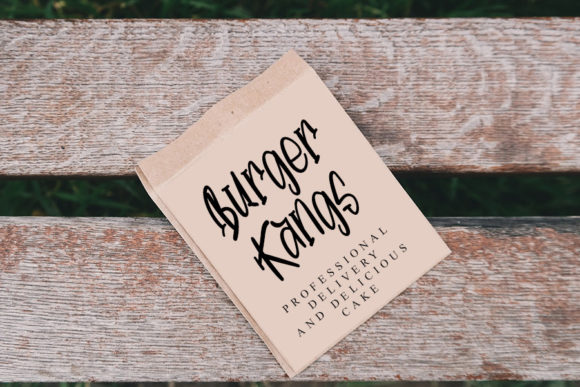
Crazy Booms Font: The Ultimate Display Font for Creative Projects
Are you tired of using the same old fonts for your creative projects? Do you want to add a touch of quirkiness and fun to your designs? Look no further than Crazy Booms Font! This smart and playful display font is perfect for making your projects stand out from the crowd.
What is Crazy Booms Font?
Crazy Booms Font is a unique and eye-catching display font that is designed to add a touch of whimsy to your creative projects. Its quirky and fun design makes it perfect for a wide range of applications, from posters and flyers to social media graphics and website headers.
Key Features of Crazy Booms Font
So, what makes Crazy Booms Font so special? Here are just a few of its key features:
- Smart and quirky design: Crazy Booms Font has a unique and playful design that is sure to grab attention.
- Fun and energetic feel: This font has a lively and energetic feel that is perfect for projects that need a bit of personality.
- Highly versatile: Crazy Booms Font can be used for a wide range of projects, from digital designs to print materials.
- Easily matched to a wide range of projects: Whether you’re working on a poster, flyer, or social media graphic, Crazy Booms Font can be easily matched to your project’s style and tone.
How to Use Crazy Booms Font
Using Crazy Booms Font is easy! Here are a few tips for incorporating it into your creative projects:
- Use it as a headline font: Crazy Booms Font is perfect for use as a headline font, where its quirky and fun design can really make an impact.
- Pair it with other fonts: Don’t be afraid to pair Crazy Booms Font with other fonts to create a unique and interesting look.
- Experiment with different colors: Crazy Booms Font looks great in a wide range of colors, so don’t be afraid to experiment and find the perfect hue for your project.
Benefits of Using Crazy Booms Font
So, why should you use Crazy Booms Font for your creative projects? Here are just a few of the benefits:
- Adds personality to your designs: Crazy Booms Font is a great way to add a touch of personality and whimsy to your designs.
- Grabs attention: This font is sure to grab attention and make your projects stand out from the crowd.
- Highly versatile: Crazy Booms Font can be used for a wide range of projects, making it a great addition to your font library.
Who is Crazy Booms Font for?
Crazy Booms Font is perfect for anyone who wants to add a touch of quirkiness and fun to their creative projects. This includes:
- Graphic designers: If you’re a graphic designer looking for a unique and eye-catching font to use in your designs, Crazy Booms Font is a great choice.
- Social media managers: If you’re responsible for creating social media graphics, Crazy Booms Font is a great way to add some personality to your posts.
- Marketeers: If you’re looking for a way to make your marketing materials stand out, Crazy Booms Font is a great option.
In conclusion, Crazy Booms Font is a smart, quirky, and fun display font that is perfect for adding a touch of personality to your creative projects. Its highly versatile design makes it suitable for a wide range of applications, from posters and flyers to social media graphics and website headers. So why not give it a try and see how it can make your projects stand out?